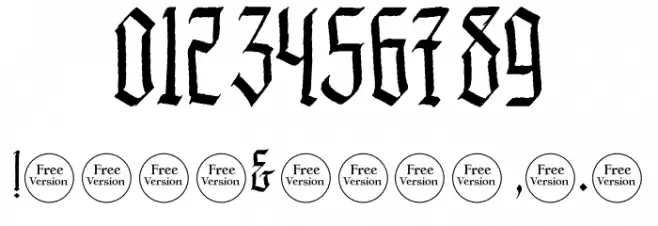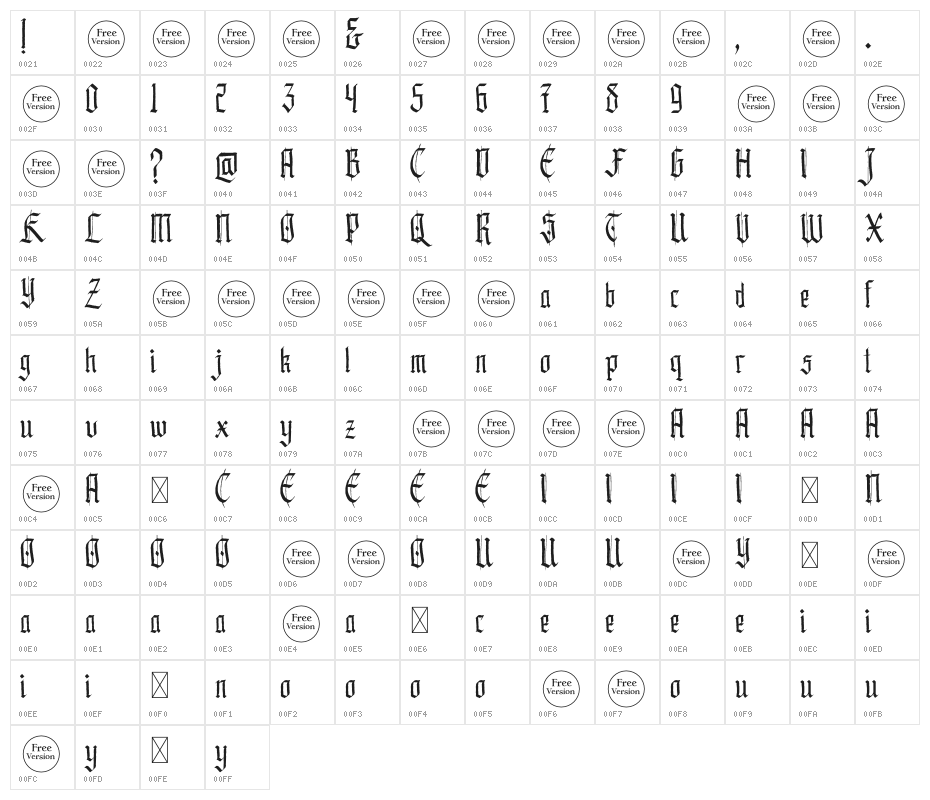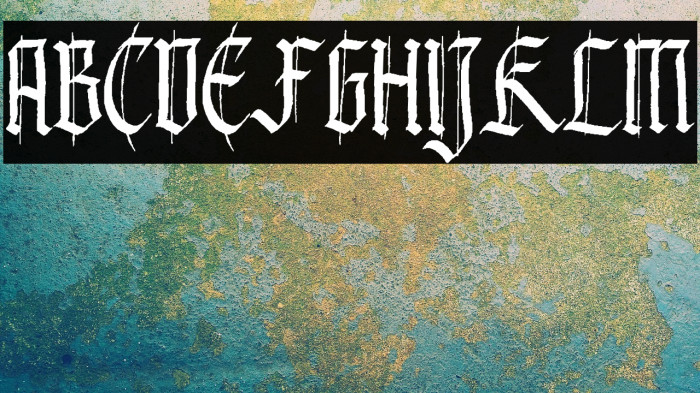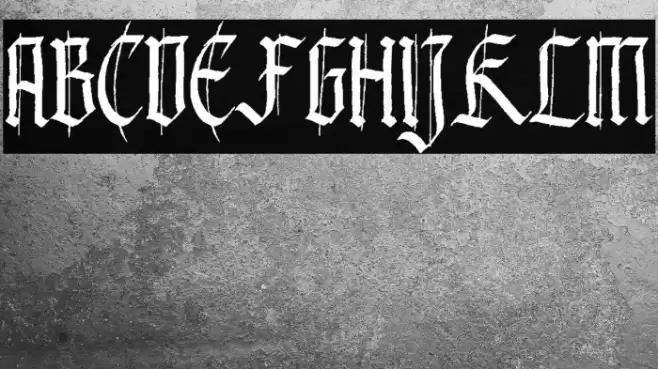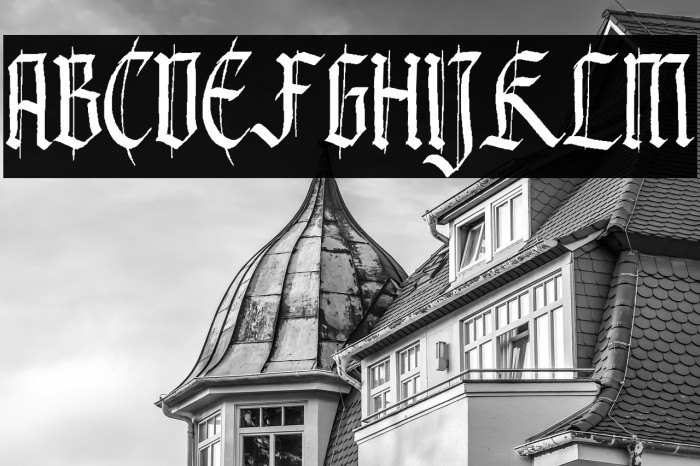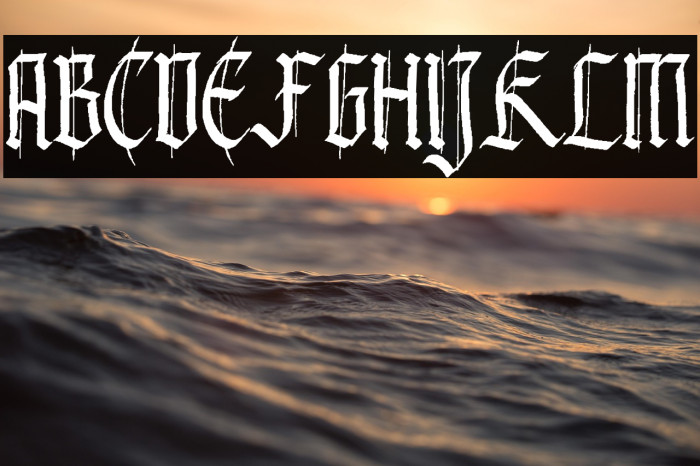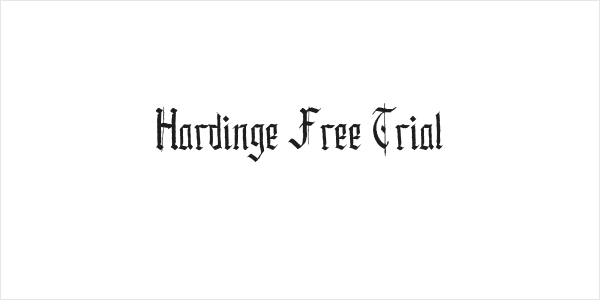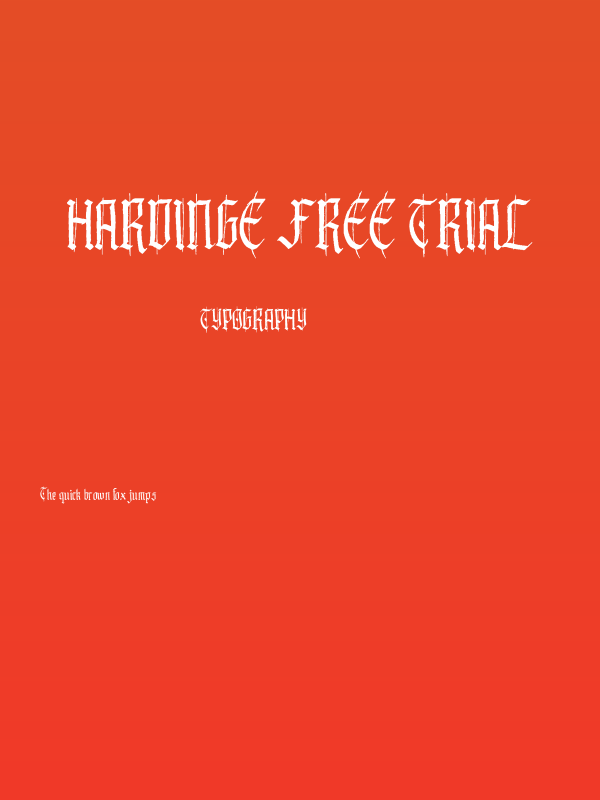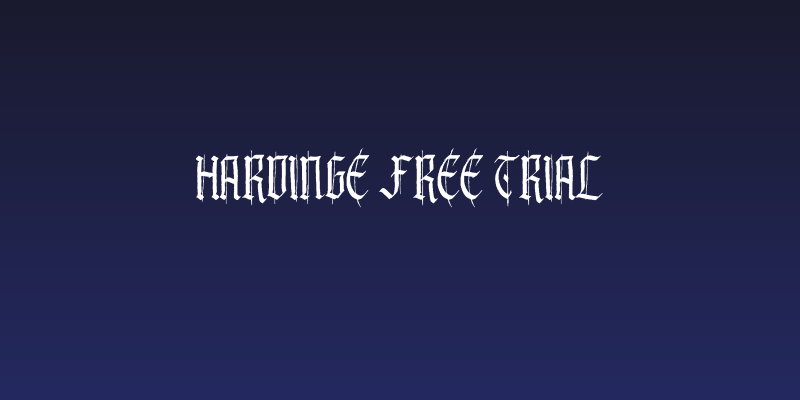
Hardinge Free Trial Font
Hardinge Free Trial Description
This font features a traditional blackletter style, characterized by its intricate and angular letterforms. The uppercase letters are bold and commanding, with sharp edges and a medieval aesthetic. The lowercase letters maintain the same angularity, offering a cohesive look throughout the typeface. Numbers and special characters are designed to match the overall style, providing a consistent and historical feel. The font's design is reminiscent of old manuscripts and Gothic architecture, making it suitable for projects that require a touch of antiquity and elegance.
| Proposed Projects | Ideal for historical documents, event invitations, book covers, and branding that requires a vintage or Gothic touch. |